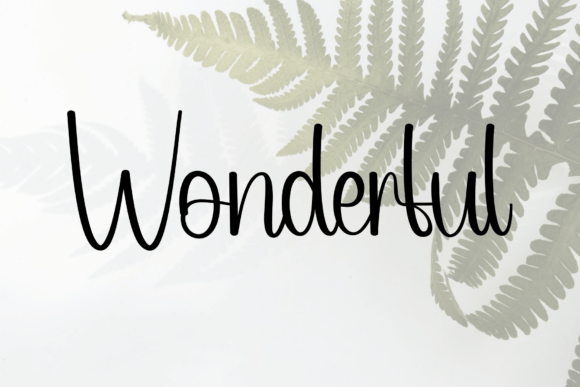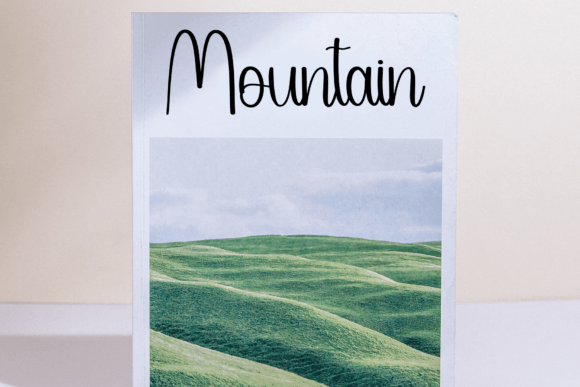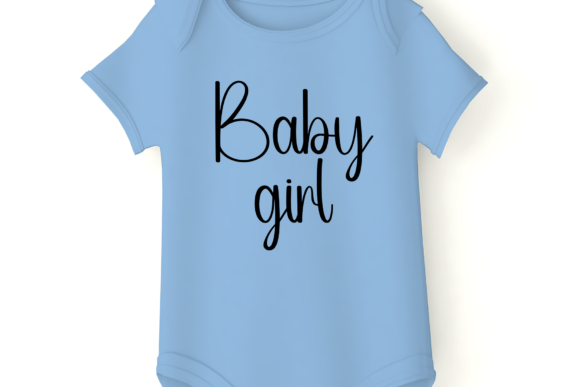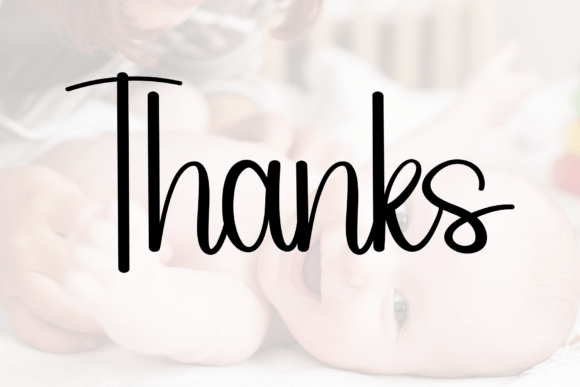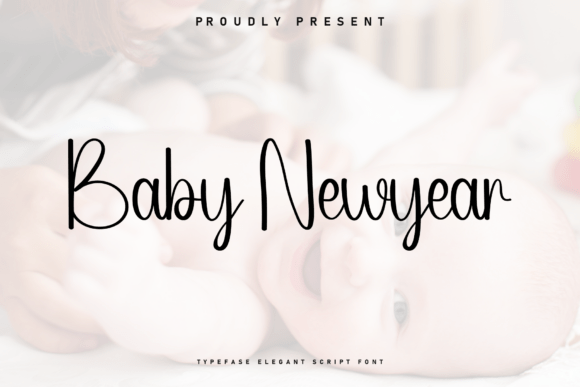
Baby Newyear Font: Elevate Your Designs with Elegance and Sophistication
In the world of typography, fonts play a crucial role in conveying the tone and personality of a design. For designers and crafters seeking to add a touch of elegance and contemporary charm to their projects, the Baby Newyear Font is an excellent choice. This stylish script font is designed to capture the beauty of hand-drawn calligraphy with a modern twist, making it perfect for a wide range of applications.
The Characteristics of Baby Newyear Font
Baby Newyear Font boasts an array of characteristics that set it apart from other fonts. Its graceful strokes and fluid curves create a sense of movement and fluidity, adding a dynamic touch to any design. The carefully crafted letterforms are designed to exude elegance and sophistication, making it an ideal choice for projects that require a refined and polished look.
One of the standout features of Baby Newyear Font is its ability to capture the beauty of hand-drawn calligraphy with a modern twist. The font’s natural flow and polished details give it a unique and distinctive look that is sure to elevate any design. Whether you’re working on a logo, invitation, packaging, or social media graphic, Baby Newyear Font is the perfect choice.
Uses of Baby Newyear Font
Baby Newyear Font is a versatile font that can be used in a wide range of applications. Some of the most popular uses of this font include:
• Logos: Add a touch of elegance and sophistication to your logo with Baby Newyear Font. Its unique and distinctive look makes it perfect for businesses and brands seeking to stand out from the competition.
• Invitations: Create beautiful and elegant invitations for weddings, parties, and other special occasions with Baby Newyear Font. Its refined and polished look is sure to impress.
• Packaging: Add a touch of luxury and sophistication to your packaging with Baby Newyear Font. Its modern and elegant look makes it perfect for high-end brands and products.
• Social Media Graphics: Create stunning social media graphics with Baby Newyear Font. Its unique and distinctive look is sure to grab attention and elevate your brand.
Why Choose Baby Newyear Font?
There are many reasons why designers and crafters should choose Baby Newyear Font for their projects. Some of the benefits of using this font include:
• Elegance and Sophistication: Baby Newyear Font exudes elegance and sophistication, making it perfect for projects that require a refined and polished look.
• Versatility: This font is versatile and can be used in a wide range of applications, from logos and invitations to packaging and social media graphics.
• Unique and Distinctive: Baby Newyear Font has a unique and distinctive look that is sure to elevate any design and make it stand out from the competition.
In conclusion, Baby Newyear Font is a stylish script font that is perfect for designers and crafters seeking to add a touch of elegance and sophistication to their projects. Its unique and distinctive look, versatility, and ease of use make it an excellent choice for a wide range of applications. Whether you’re working on a logo, invitation, packaging, or social media graphic, Baby Newyear Font is sure to elevate your design and make it stand out from the competition.